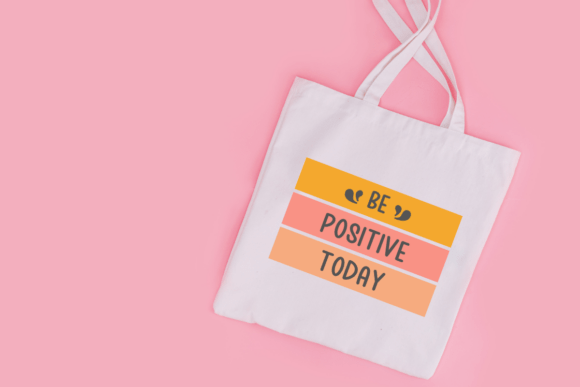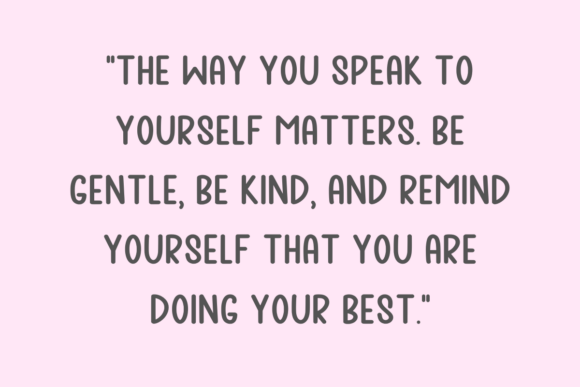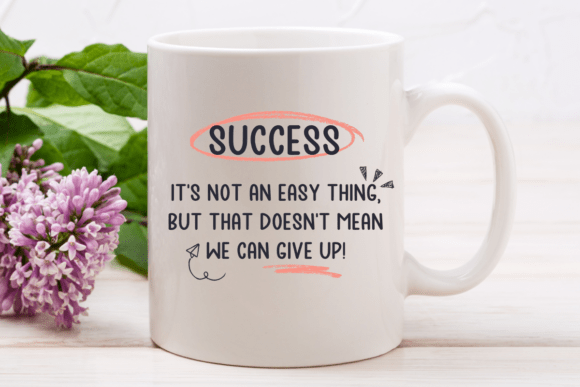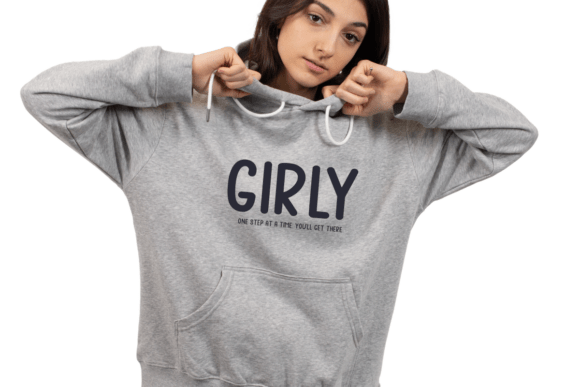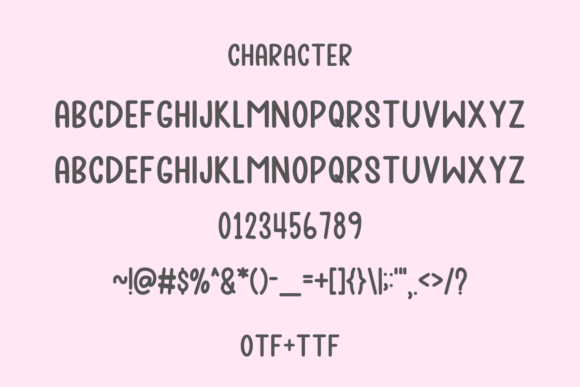
The Bunny Picnic Font: A Playful Companion for Creative Projects
I’ll never forget the time I was working on a custom party invitation for a client’s kid’s birthday. The theme was a whimsical bunny garden party, and I was determined to bring it to life. But as I sat in front of my computer, sipping coffee and staring at my design software, I realized I was stuck – I just couldn’t find the right font to match the playful, carefree vibe I was going for. That’s when I stumbled upon the Bunny Picnic font, and let me tell you, it was love at first sight! ✨
As a designer and crafter, I’m always on the lookout for fonts that can help me create unique and engaging projects. Here’s my take on the Bunny Picnic font:
- ✅ The playful, handwritten style that’s perfect for crafts, planners, and DIY projects
- ✨ The cute and friendly aesthetic that works great for kids’ projects, party invitations, and more
- 💻 The font’s versatility – it works beautifully for both digital and print projects
- 🎉 The OpenType features, glyphs, and stylistic alternates that allow for endless creativity
While the Bunny Picnic font is amazing, there are a few things to keep in mind: ⚠️
- 🤔 Some characters may not work well in very small sizes, so be sure to test it out before finalizing your design
- ⚠️ The font may not be suitable for very formal or professional projects, as it’s quite playful and whimsical
The Story Behind Bunny Picnic: A Designer’s Inspiration
According to the font’s creators, the Bunny Picnic font was inspired by the joy and playfulness of childhood summers. Imagine a sunny afternoon, surrounded by bunnies, flowers, and the simple pleasures of life – that’s the feeling they aimed to capture in this delightful font. 🌼
Whether or not that’s the actual story, it’s clear that the Bunny Picnic font embodies a sense of carefree whimsy that’s perfect for a wide range of creative projects.
Q: Is the Bunny Picnic font suitable for very small text sizes?
A: While the Bunny Picnic font is beautiful, it’s best used at larger text sizes (around 20-30 points or more) to ensure it remains legible and visually appealing.